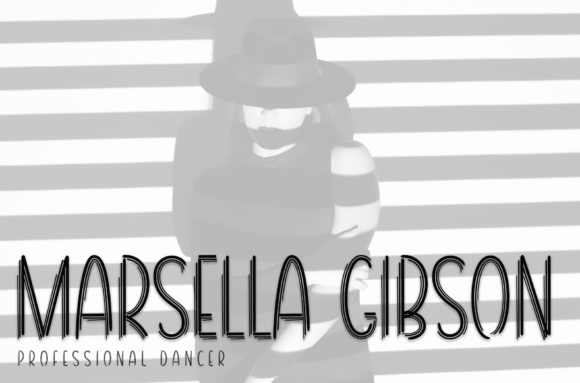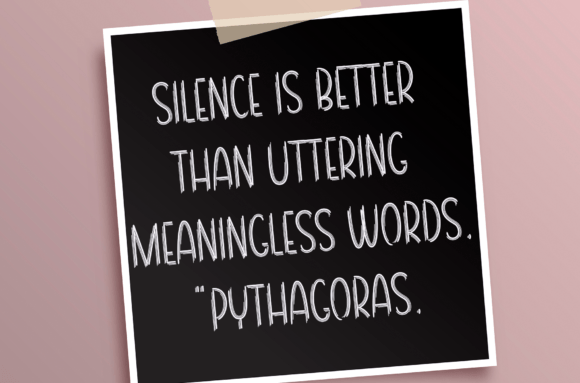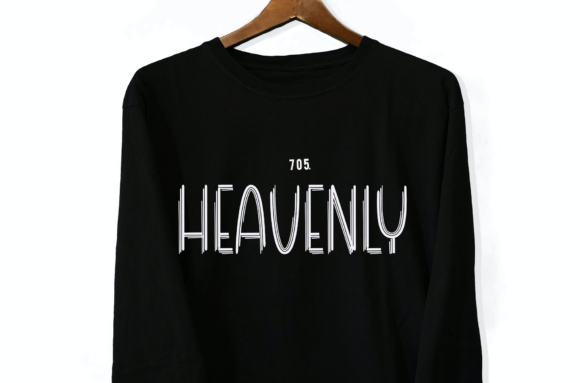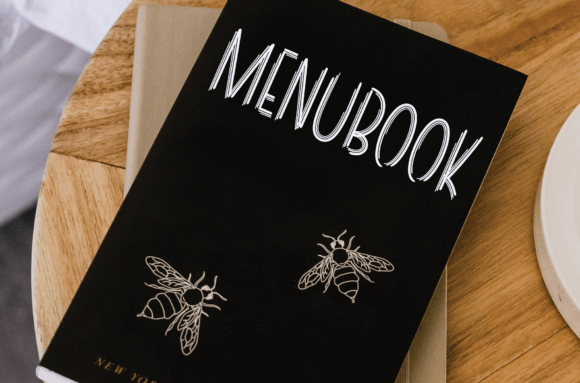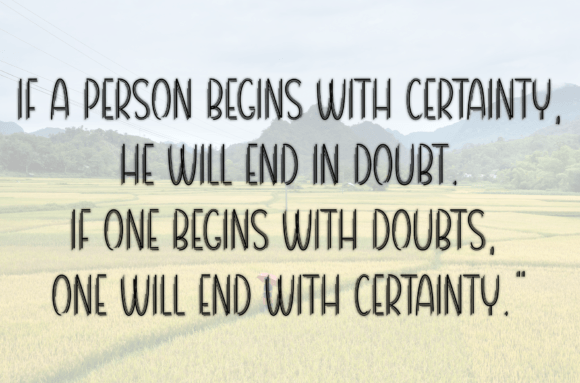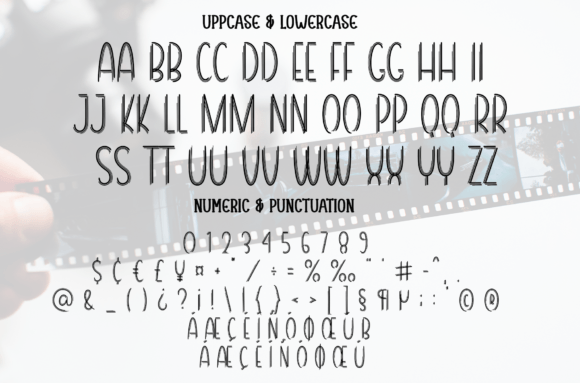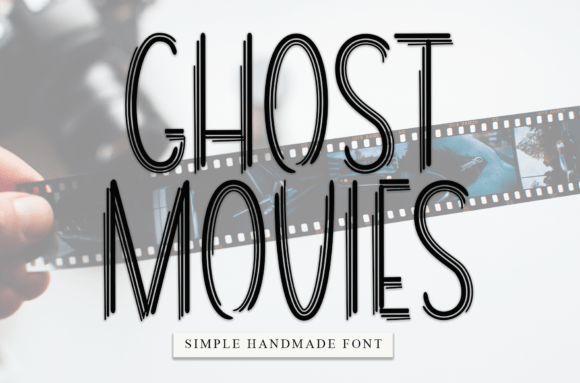
Unleash the Spookiness: Exploring the Ghost Movies Font
Are you a designer or crafter looking for a font that adds a touch of eeriness and playfulness to your projects? Look no further than the Ghost Movies Font! This cool and unique display font is perfect for creating eye-catching posters, cards, stickers, and more. In this article, we’ll dive into the world of Ghost Movies Font and explore its features, uses, and benefits.
What is Ghost Movies Font?
Ghost Movies Font is a modern and fresh display font designed to add a fun touch to your designs. Its unique and quirky style makes it perfect for projects that require a bit of whimsy and personality. Whether you’re creating a spooky-themed poster or a playful sticker, this font is sure to grab attention.
Key Features of Ghost Movies Font
- Unique and Quirky Style: Ghost Movies Font boasts a one-of-a-kind design that’s sure to make your projects stand out.
- Modern and Fresh: This font is perfect for designers and crafters who want to add a touch of modernity to their work.
- Display Font: Ghost Movies Font is designed specifically for display purposes, making it perfect for headlines, titles, and short phrases.
- Highly Versatile: Use this font for a wide range of projects, from posters and cards to stickers and more.
Uses of Ghost Movies Font
Ghost Movies Font is an incredibly versatile font that can be used for a wide range of projects. Here are some ideas to get you started:
- Posters: Create eye-catching posters for movies, events, or promotions with a spooky or playful twist.
- Cards: Add a touch of personality to your greeting cards, invitations, or thank-you cards.
- Stickers: Design fun and quirky stickers for laptops, water bottles, or any other surface.
- Social Media Graphics: Use Ghost Movies Font to create engaging social media graphics, such as Facebook posts, Instagram stories, or Twitter headers.
Benefits of Using Ghost Movies Font
So why choose Ghost Movies Font for your next project? Here are some benefits to consider:
- Adds a Touch of Personality: This font adds a unique and playful touch to your designs, making them more engaging and memorable.
- Easy to Read: Despite its quirky style, Ghost Movies Font is highly legible, making it perfect for short phrases and headlines.
- Time-Saving: With Ghost Movies Font, you can create professional-looking designs in no time, saving you hours of design work.
Tips for Using Ghost Movies Font
To get the most out of Ghost Movies Font, here are some tips to keep in mind:
- Use it Sparingly: This font is designed for display purposes, so use it sparingly to avoid overwhelming your design.
- Experiment with Colors: Ghost Movies Font looks great in a variety of colors, so don’t be afraid to experiment and find the perfect hue for your design.
- Pair it with Other Fonts: Combine Ghost Movies Font with other fonts to create a unique and visually appealing design.
Ghost Movies Font is a unique and versatile display font that’s perfect for designers and crafters who want to add a touch of personality to their work. With its quirky style, modern freshness, and high legibility, this font is sure to grab attention and make your projects stand out. Whether you’re creating posters, cards, stickers, or social media graphics, Ghost Movies Font is an excellent choice. So why wait? Download Ghost Movies Font today and unleash the spookiness in your designs!